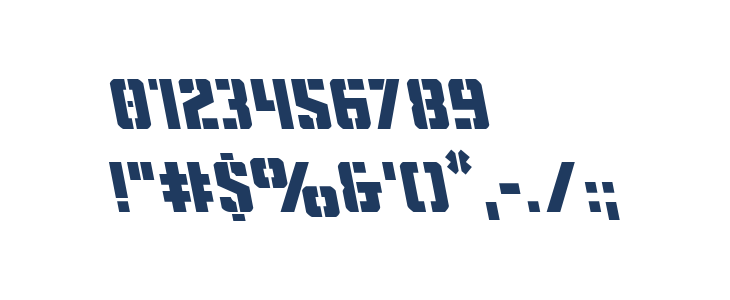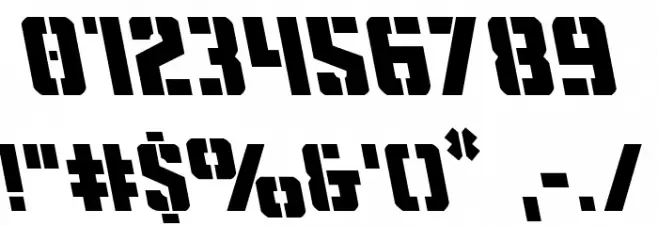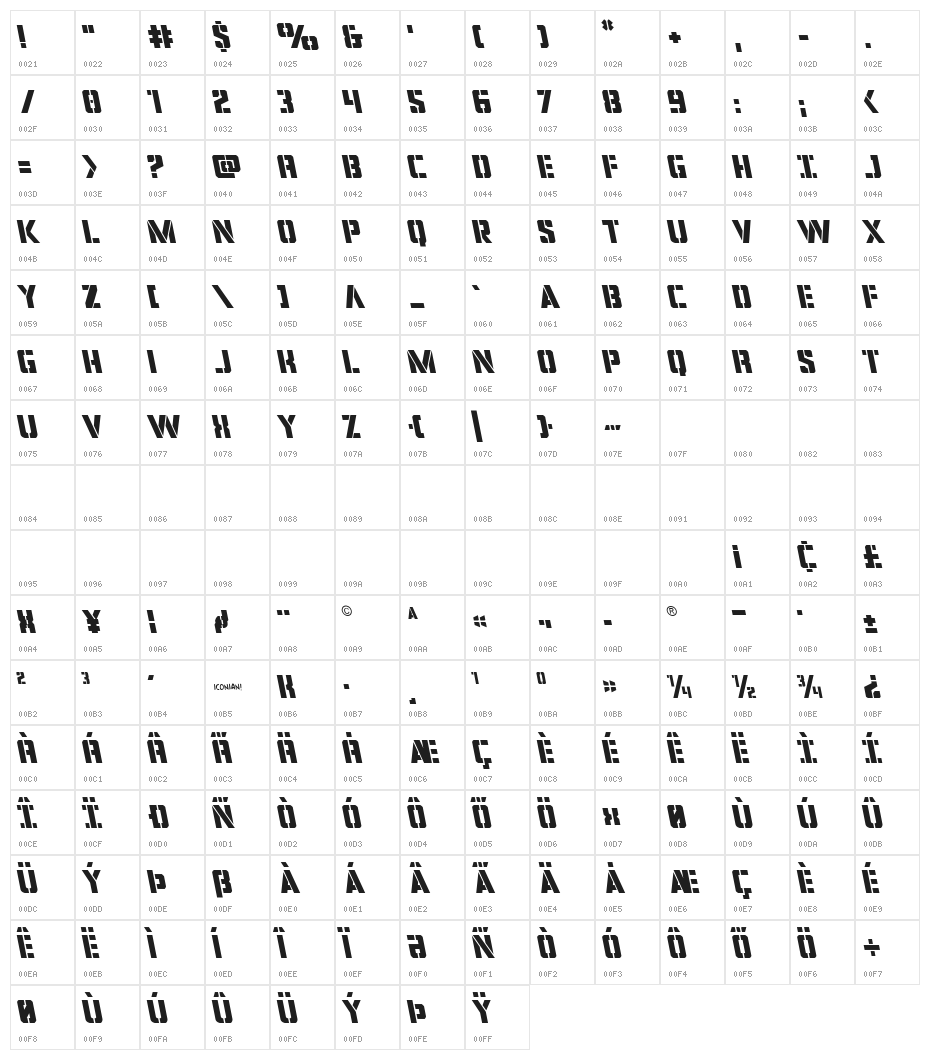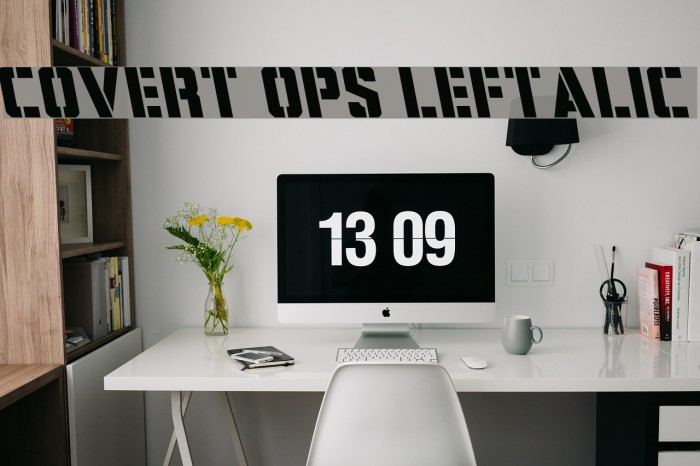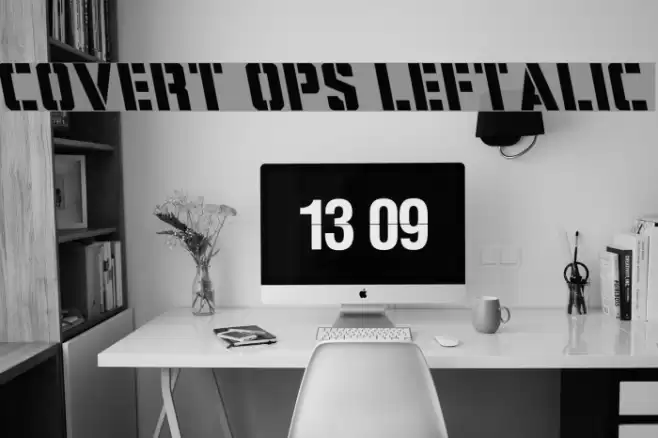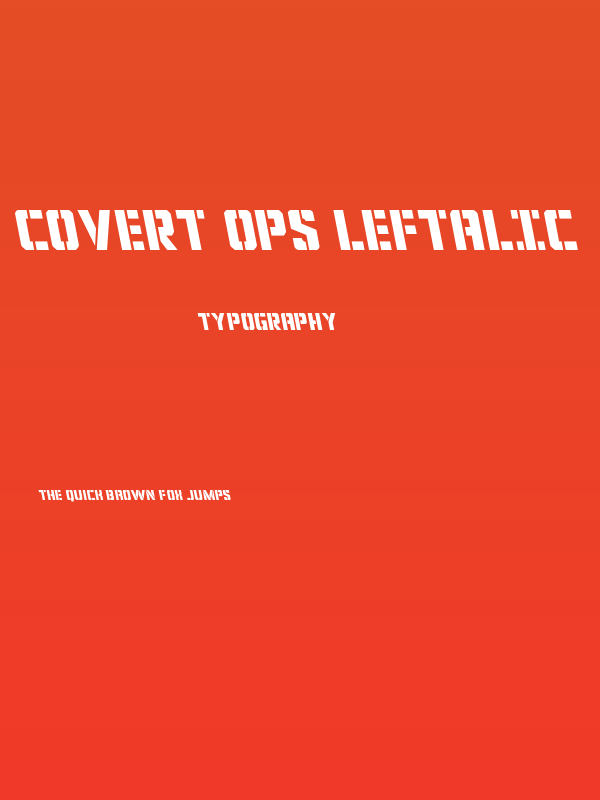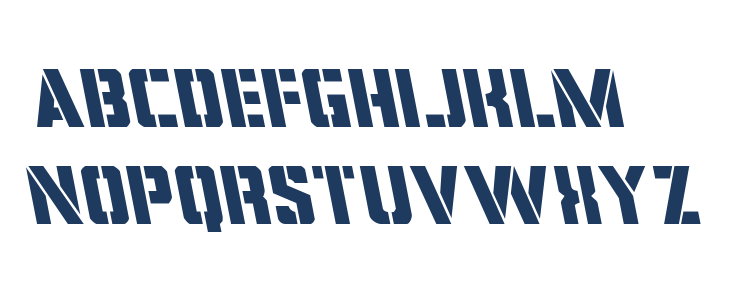
Covert Ops Leftalic Font
Covert Ops Leftalic Description
This font features a bold, angular design with a distinct stencil-like appearance. The characters are sharply cut, giving a sense of precision and strength. The slanted orientation adds a dynamic and forward-moving feel, suitable for conveying urgency or action. The uppercase and lowercase letters maintain a consistent style, with numbers and special characters following the same bold, impactful design. The font's geometric shapes and clean lines make it highly legible, even at smaller sizes.